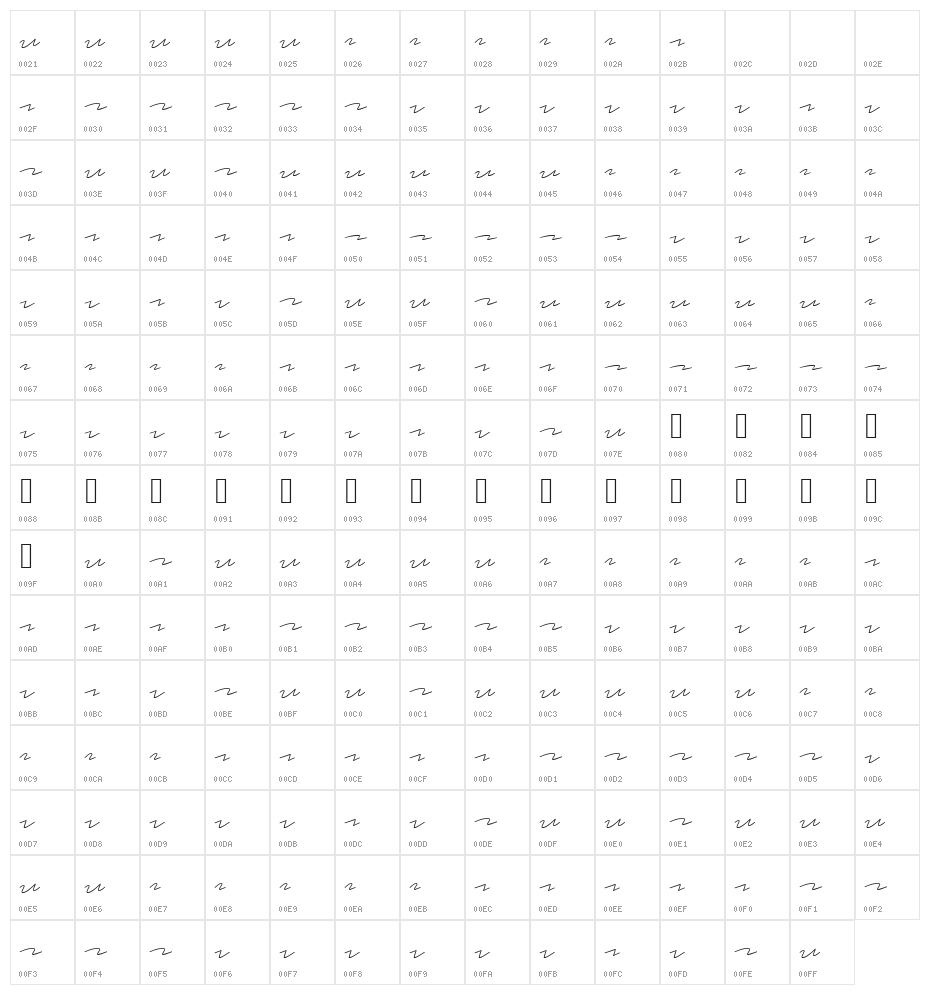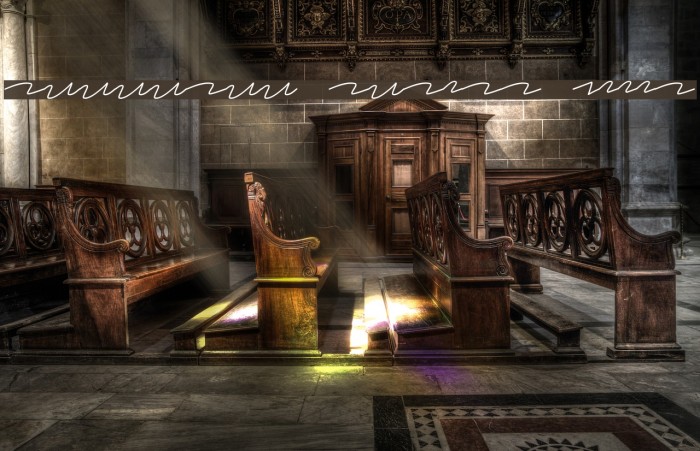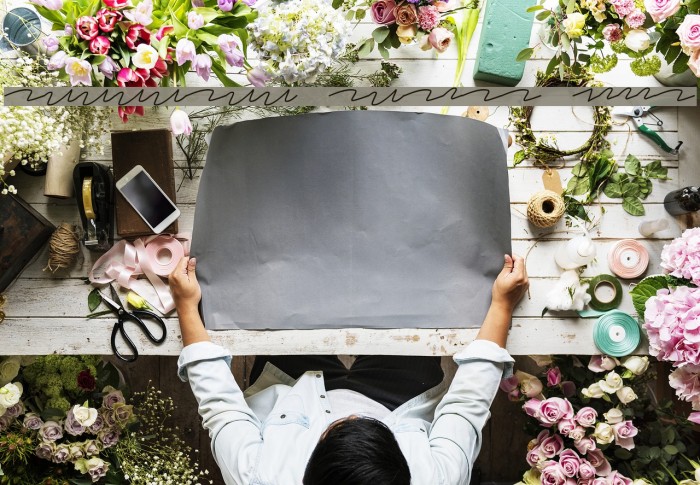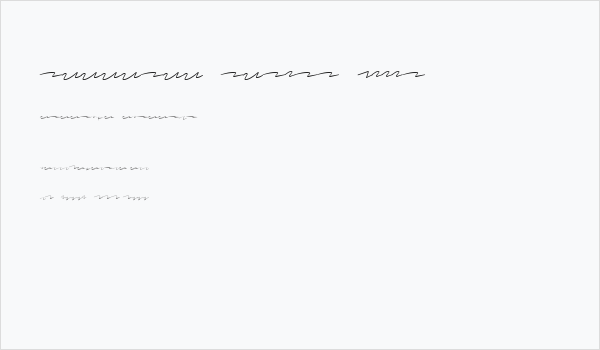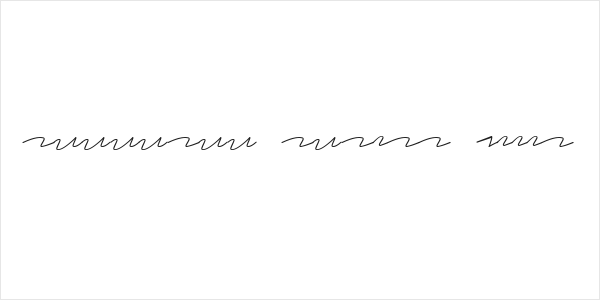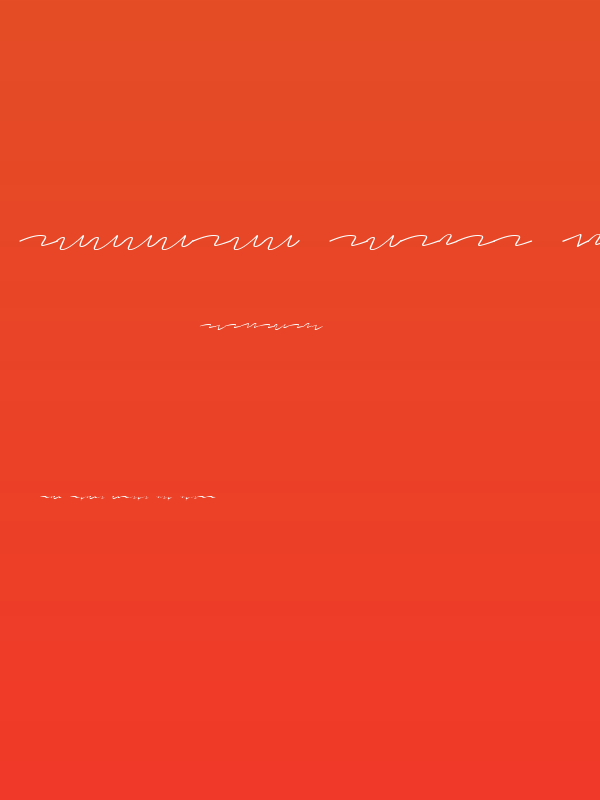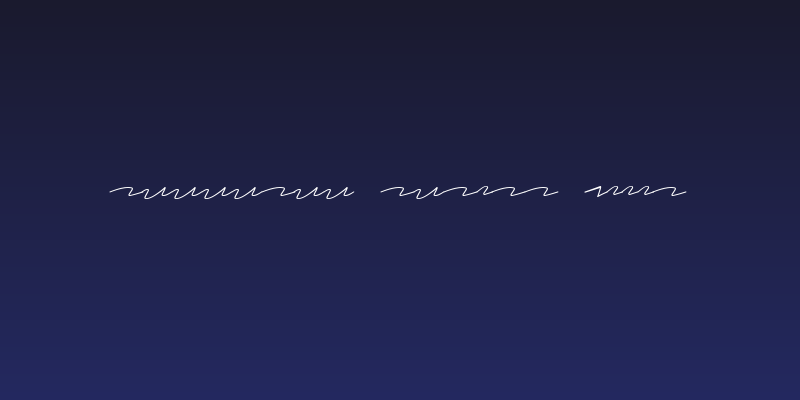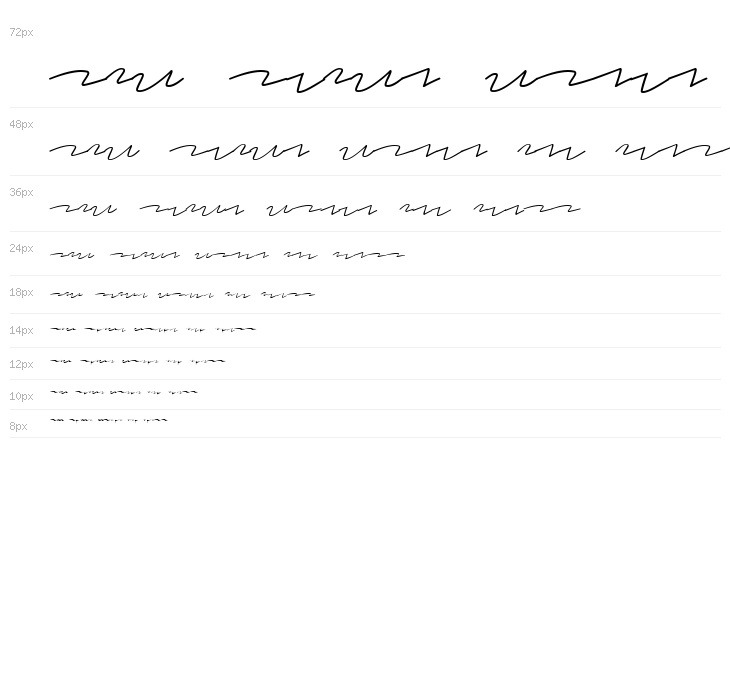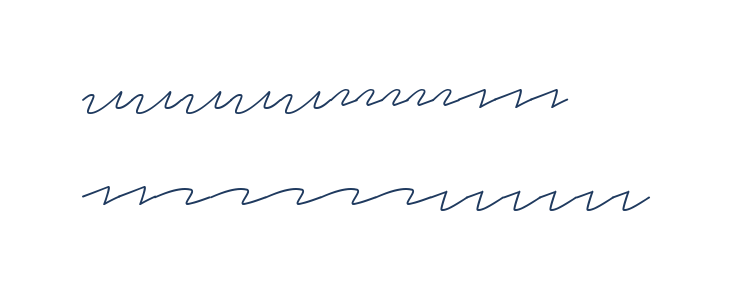
Redacted Script Light Font
This font features a series of wavy, continuous lines that mimic the appearance of redacted text. The strokes are consistent in their wave-like pattern, creating a sense of movement and fluidity. The design is minimalistic and abstract, focusing on the visual representation of obscured or hidden information. It lacks traditional letterforms, instead offering a stylized depiction of text that has been intentionally concealed. The overall look is modern and artistic, suitable for creative projects that require a unique and unconventional approach.
| Overall Style | Modern, Artistic |
| Use Case | Artistic designs, Abstract art, Creative projects |
| Proposed Projects | Ideal for artistic designs, abstract art projects, or any creative work that requires a unique representation of hidden or obscured text. |